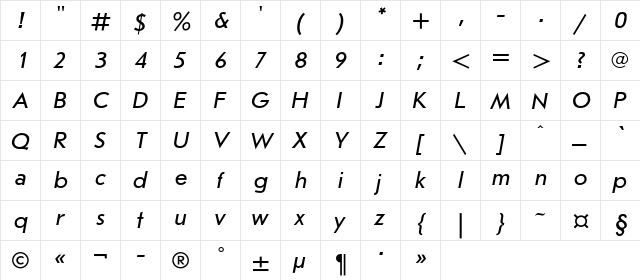
JournalSansC Italic
Design Context for JournalSansC Typeface
JournalSansC takes a measured approach to typography — its balanced proportions and neutral character make it a reliable workhorse for both digital and print work. Its italic angle brings a sense of urgency and motion to the letterforms.
Pro Tip: Use JournalSansC for emphasis, pull quotes, and subheadings where its slanted energy can add rhythm to the layout.